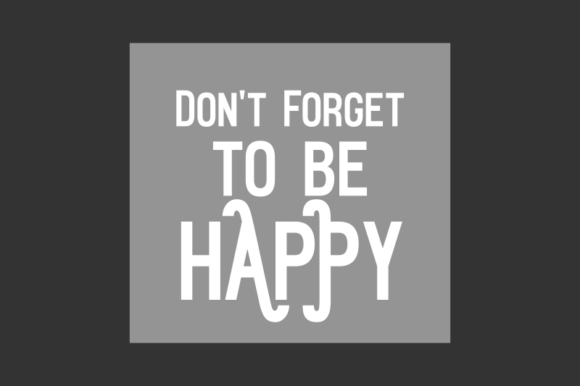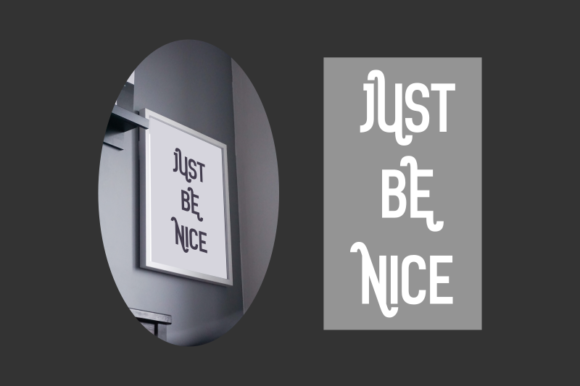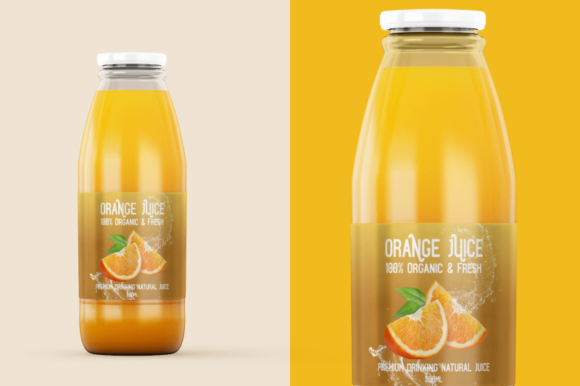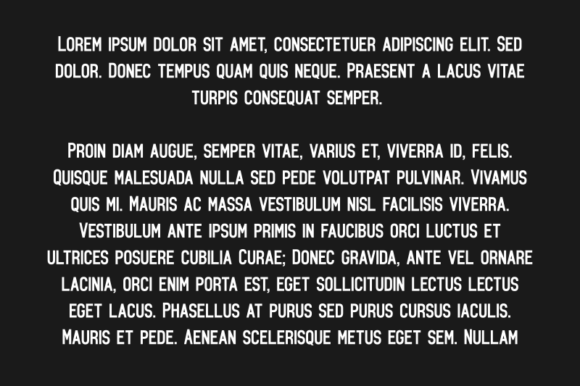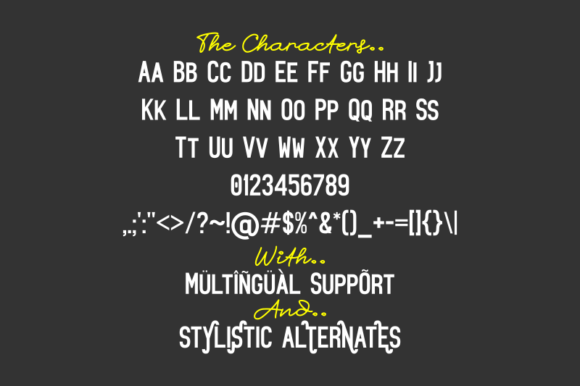
Bajigoor SW Font: Elevate Your Designs with Bold Elegance
In the world of typography, a font can make or break a design. For designers and crafters looking to add a touch of sophistication and boldness to their projects, Bajigoor SW font is an excellent choice. This stunning sans serif font is not only visually appealing but also highly functional, making it a must-have for anyone looking to elevate their designs.
What Makes Bajigoor SW Font Stand Out?
Bajigoor SW is a bold and elegant sans serif font that exudes confidence and style. Its clean lines and modern aesthetic make it perfect for a wide range of design projects, from branding and advertising to packaging and digital media. What sets Bajigoor SW apart is its PUA (Private Use Area) encoding, which allows for easy access to all glyphs and swashes. This feature makes it incredibly user-friendly, saving designers time and effort when working on complex projects.
Key Features of Bajigoor SW Font
- Bold and Elegant Design: Bajigoor SW boasts a strong, confident look that adds a touch of elegance to any design.
- PUA Encoded: Enjoy easy access to all glyphs and swashes, making it simple to customize your text.
- Sans Serif Style: The clean, modern lines of this font make it versatile and highly legible.
- Versatile: Suitable for a variety of projects, including logos, branding, headings, and more.
Why Choose Bajigoor SW Font?
For designers and crafters, finding the right font can be a daunting task. Bajigoor SW offers a unique combination of style, functionality, and ease of use. Here are a few reasons why Bajigoor SW should be at the top of your font considerations:
- Time-Saving: With PUA encoding, you can access all the additional characters and swashes without complicated processes.
- High Versatility: Use it for anything from professional business projects to personal crafts and DIY designs.
- Unique Aesthetic: Stand out from the crowd with a font that brings a fresh, modern look to your designs.
- User-Friendly: No need to be a typography expert to use Bajigoor SW; its intuitive design makes it accessible to all skill levels.
How to Use Bajigoor SW Font in Your Projects
Here are some project ideas where Bajigoor SW can shine:
- Branding and Logos: Create a lasting impression with a bold, elegant font that communicates your brand’s personality.
- Digital Media: Enhance your website, social media graphics, and digital ads with a modern aesthetic.
- Packaging: Stand out on store shelves with eye-catching packaging designs.
- Crafting and DIY Projects: Add a professional touch to your handmade goods, such as custom signs, invitations, and more.
Bajigoor SW font is a game-changer for designers and crafters looking to infuse their projects with a bold, elegant look. Its PUA encoding, combined with its striking sans serif design, makes it an invaluable tool in your typography arsenal. Whether you’re working on professional projects or personal crafts, Bajigoor SW is sure to deliver impressive results. Add it to your collection today and discover the difference it can make in your designs.